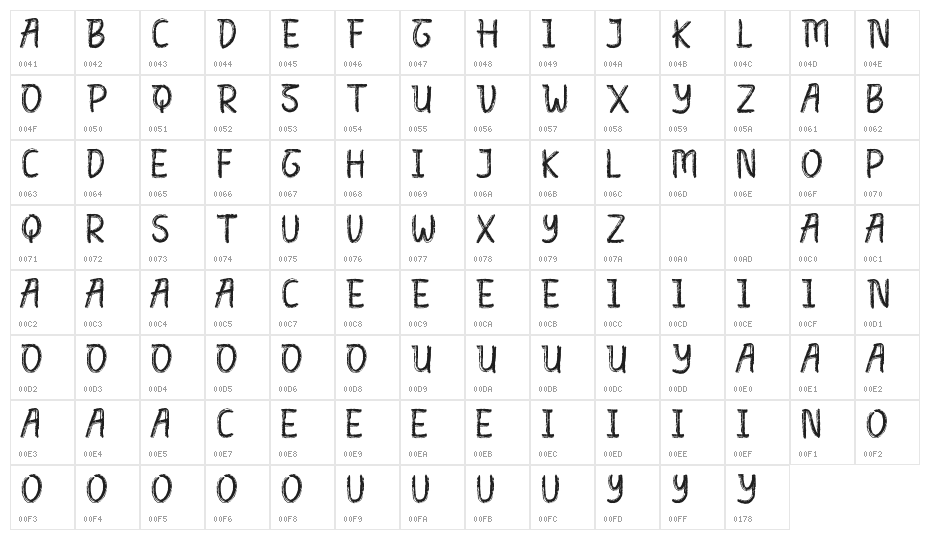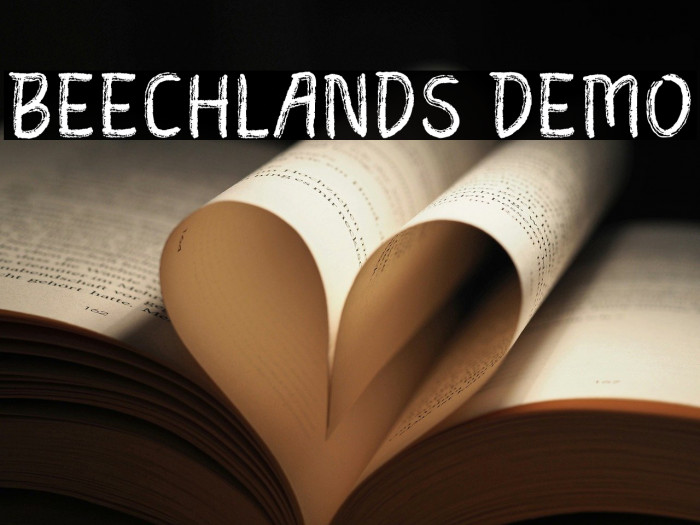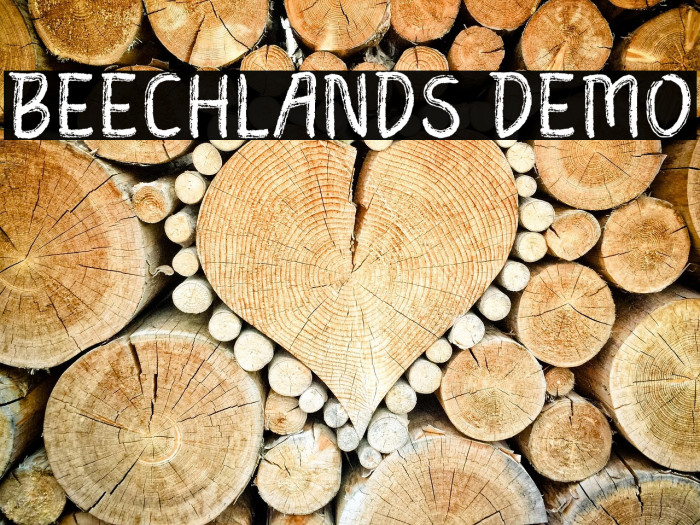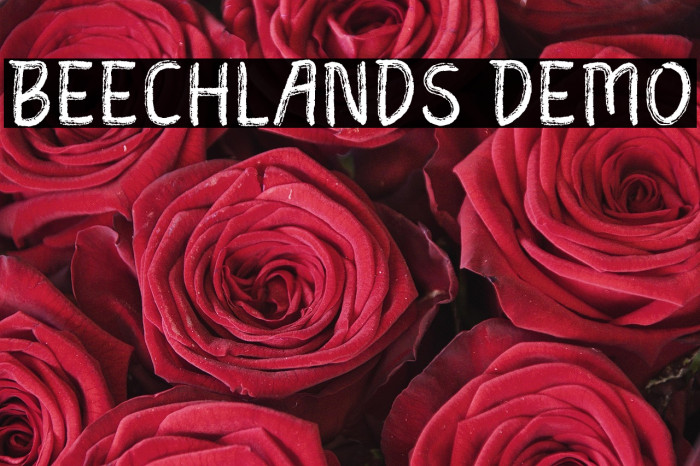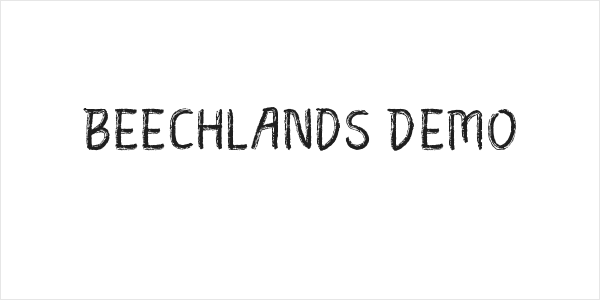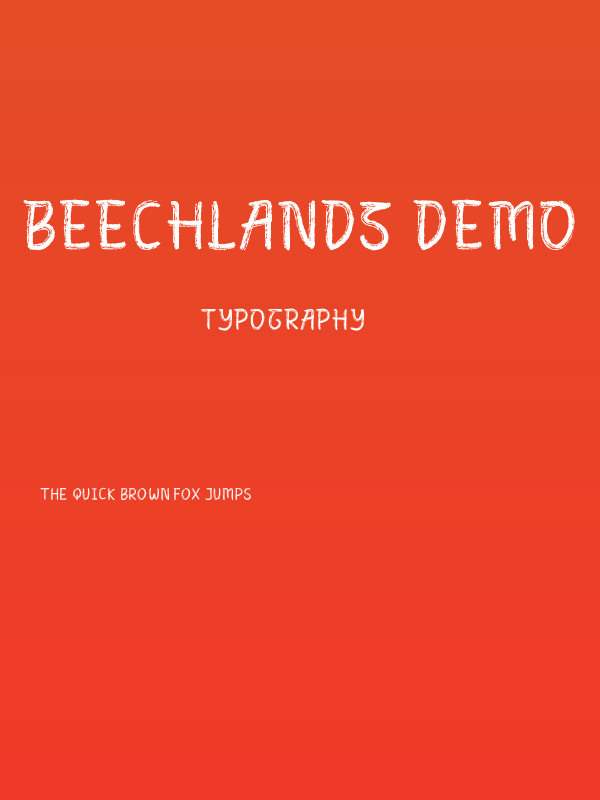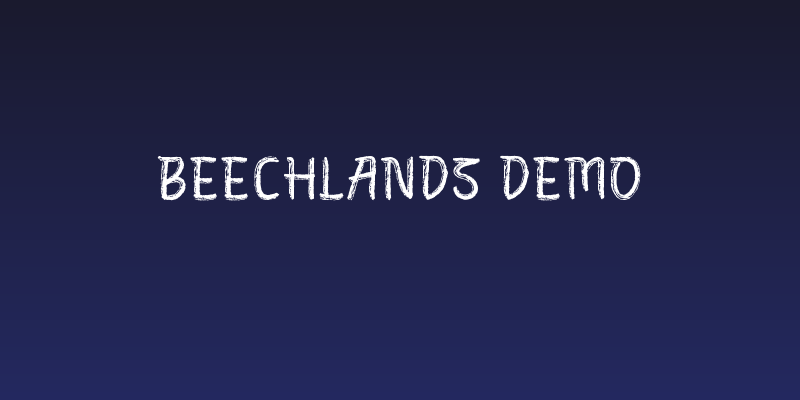
Beechlands Demo Font
Beechlands Demo Description
This font features a bold, hand-drawn style with a textured, brush-like appearance. The strokes are uneven, giving it a rustic and organic feel. The uppercase letters are prominent and slightly condensed, while the lowercase letters maintain a consistent style. The font lacks numbers and special characters, focusing solely on the alphabet. Its unique, artistic flair makes it suitable for creative projects that require a personal touch. The rough edges and varied stroke widths add to its charm, making it stand out in any design.
| Use Case | Logos, Posters, Creative projects |
| Proposed Projects | Ideal for artistic projects, posters, branding, and any design needing a rustic, personal touch. |